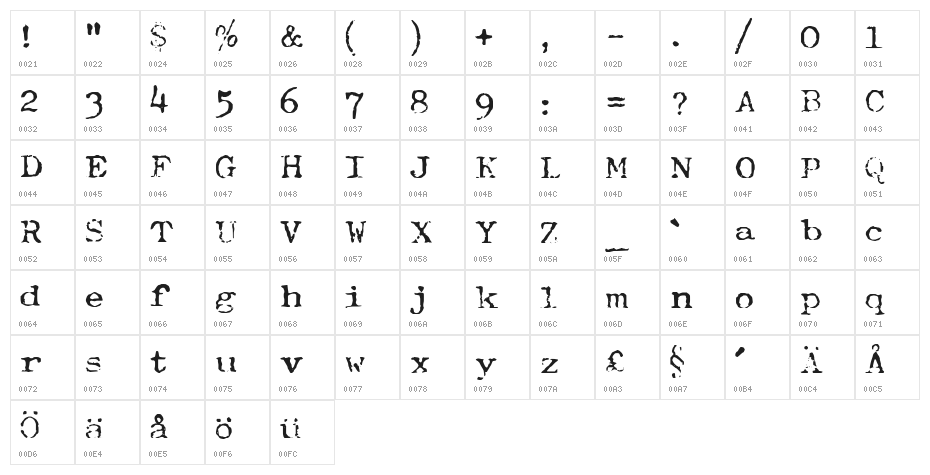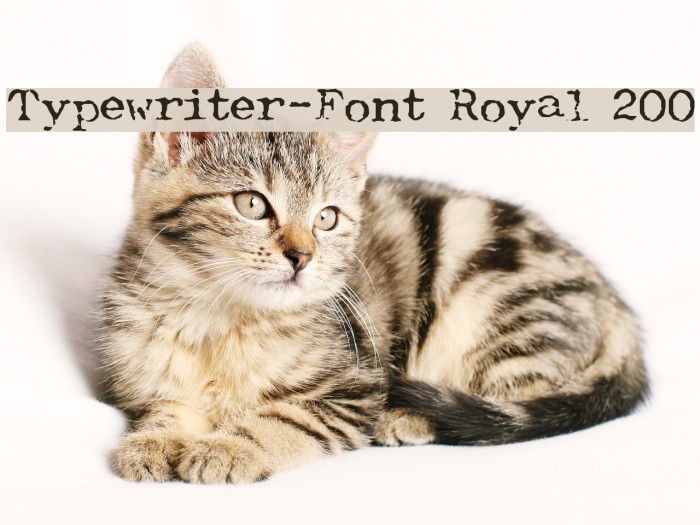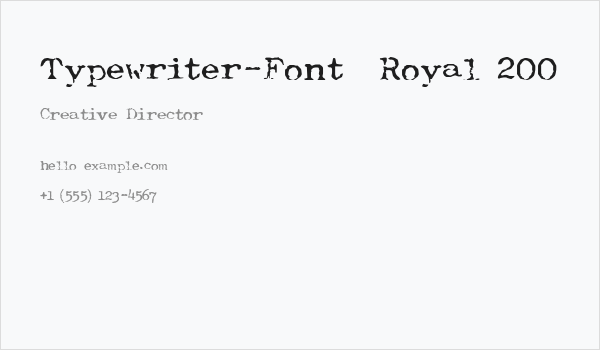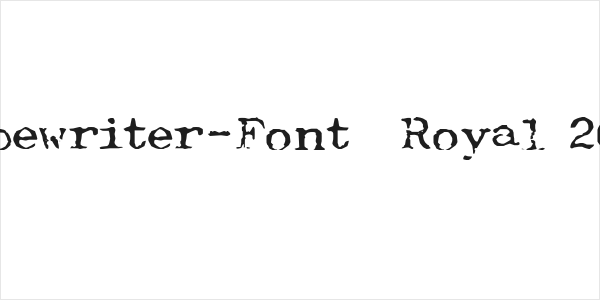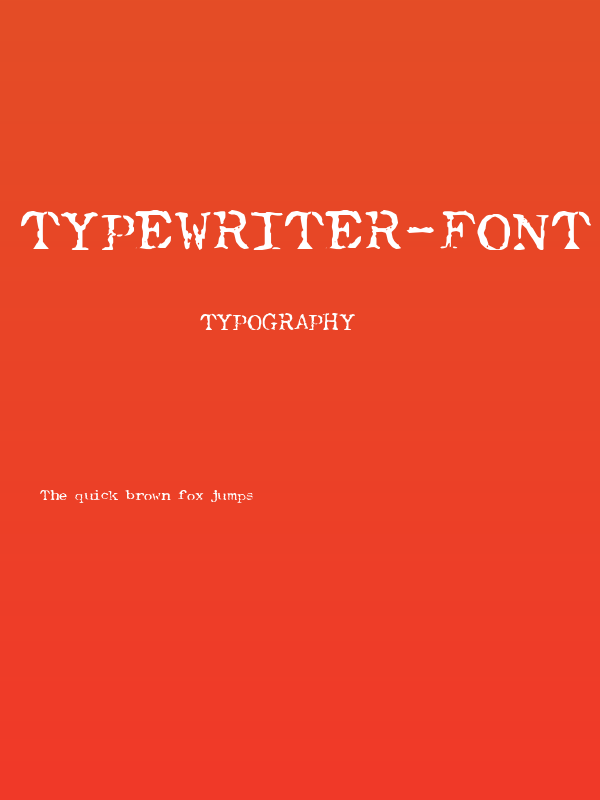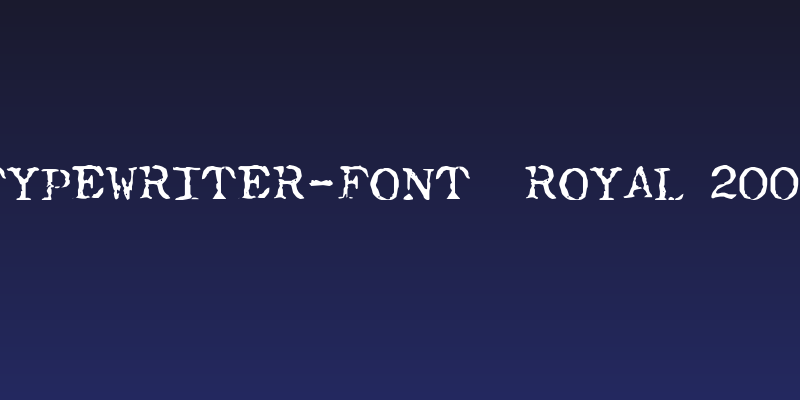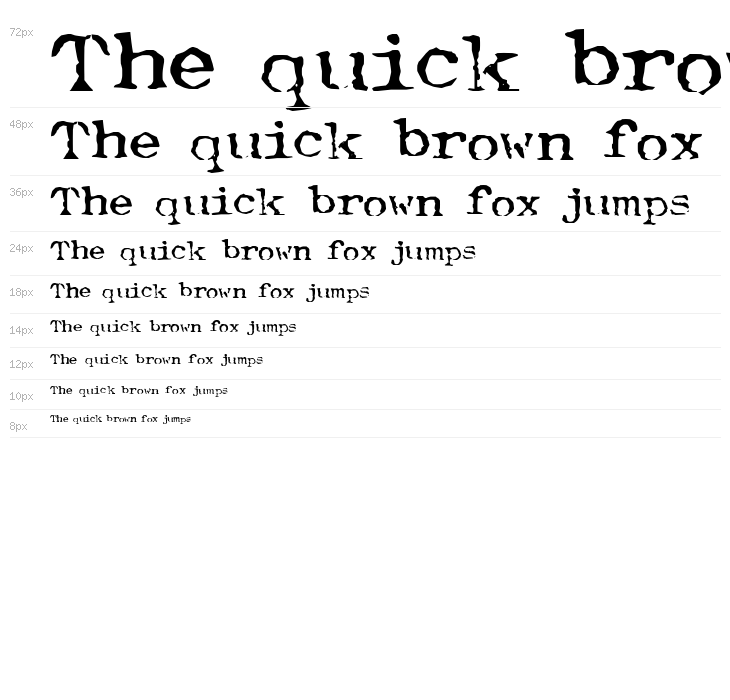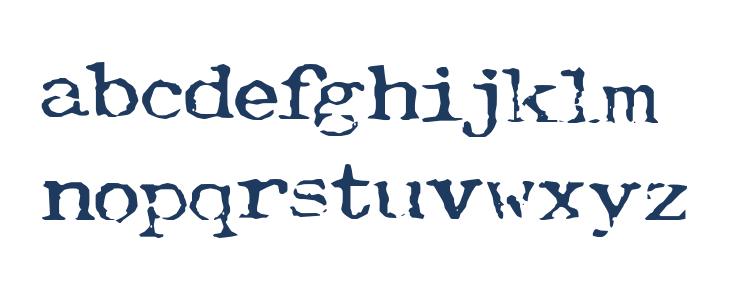
Typewriter-Font [Royal 200] Font
Typewriter-Font [Royal 200] Description
This font exudes a vintage, typewriter-inspired aesthetic, characterized by its uneven, distressed edges and a slightly irregular baseline that mimics the look of old, worn-out typewriter keys. The uppercase and lowercase letters maintain a consistent style, with a rugged texture that adds a sense of authenticity and nostalgia. Numbers and special characters follow the same design, making the font versatile for various creative applications. Its unique, aged appearance is perfect for projects that require a touch of retro charm or a handcrafted feel.
| Use Case | Headlines, Logos, Decorative text |
| Proposed Projects | Ideal for vintage-themed designs, retro posters, book covers, and creative branding projects. |